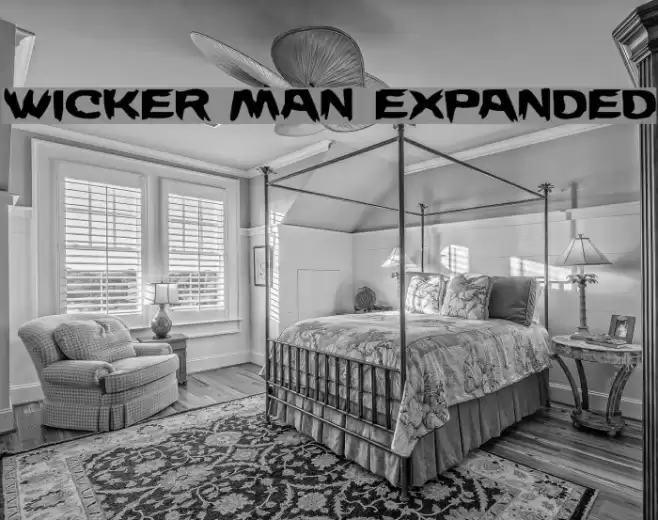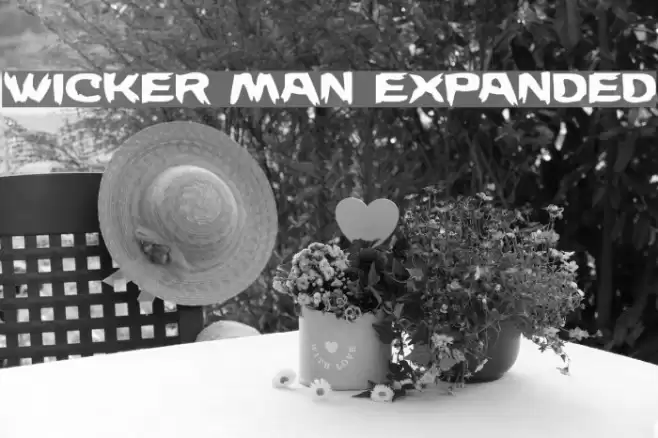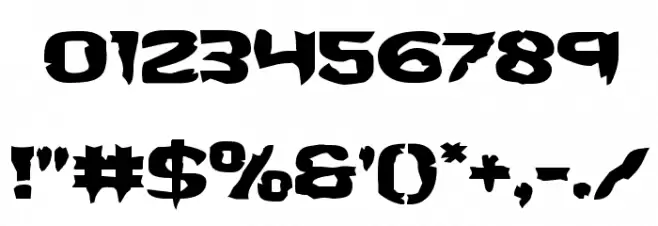
Wicker Man Expanded Font
Wicker Man Expanded Description
This font features a bold and aggressive design with sharp, jagged edges that give it a rugged and intense appearance. The characters are heavily stylized, with irregular cuts and angles that create a sense of movement and energy. The uppercase and lowercase letters maintain a consistent style, while the numbers and special characters follow the same dynamic pattern. This font is highly decorative and stands out with its unique and edgy look, making it suitable for projects that require a strong visual impact.
A bold, jagged, and aggressive decorative font with sharp edges from Uncategorized fonts.
- Proposed Projects: Ideal for horror-themed posters, album covers, video game titles, or any project needing a dramatic and intense aesthetic.